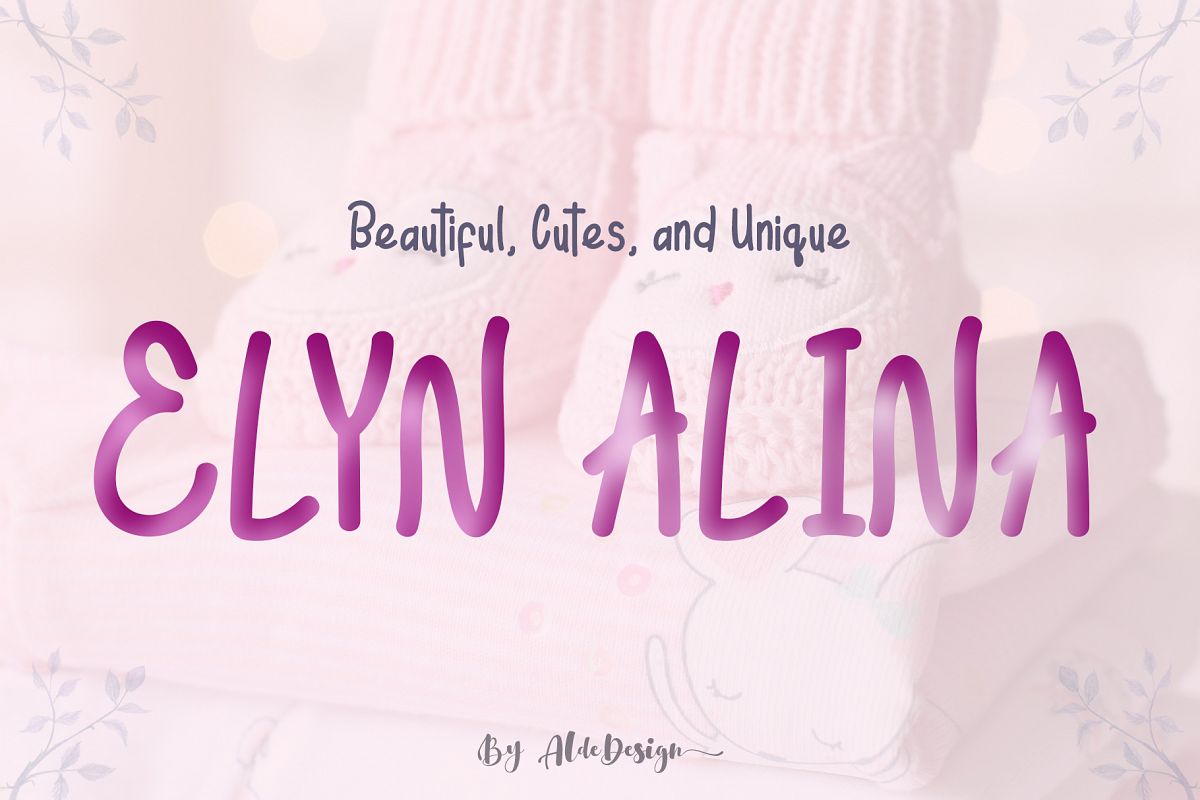
Elyn Alina - Handmade Font
We create a special font namely "Elyn Alina". The font design looks simple without losing its elegance and warmness.
The function of the font is to show that you have a modern spirit to serve high-quality products and services.
Our team design this font with OpenType features to give an artistic touch on it. This font is also applicable for numbers, punctuation, and other languages.
Each font has:
• Stylish handwritten style
• Special Ligatures